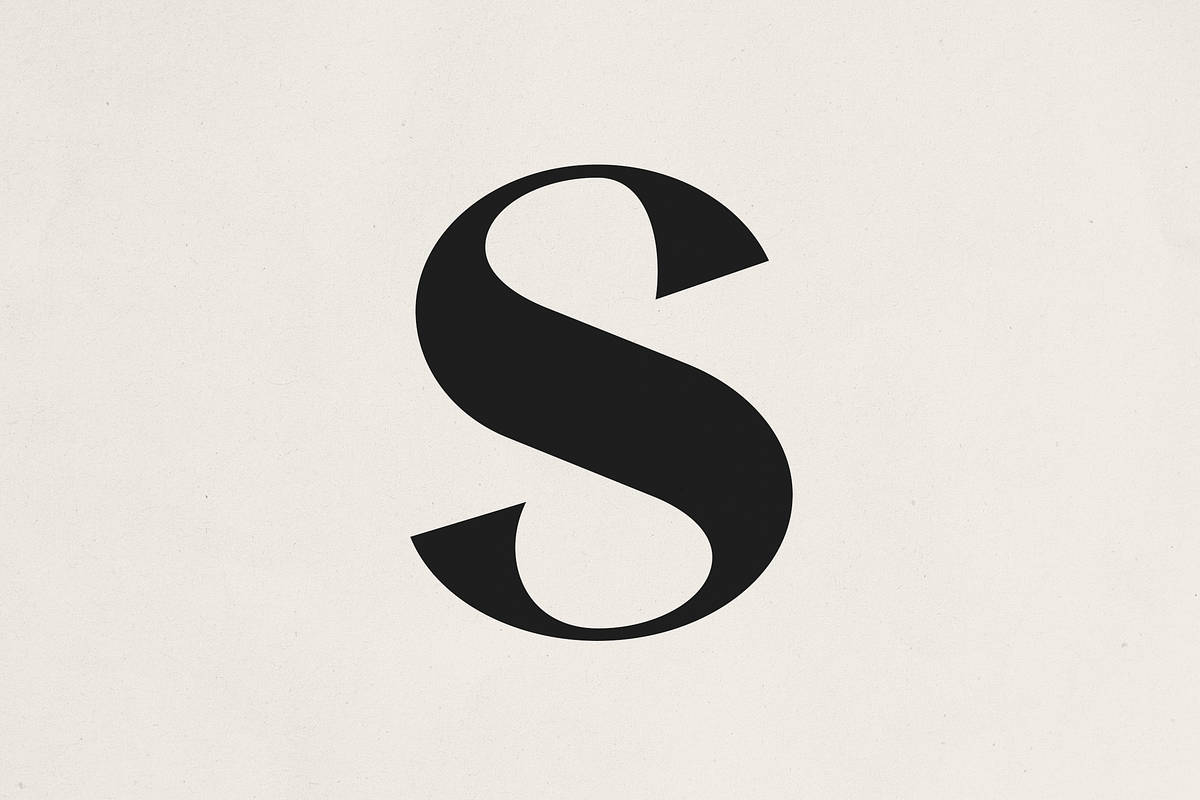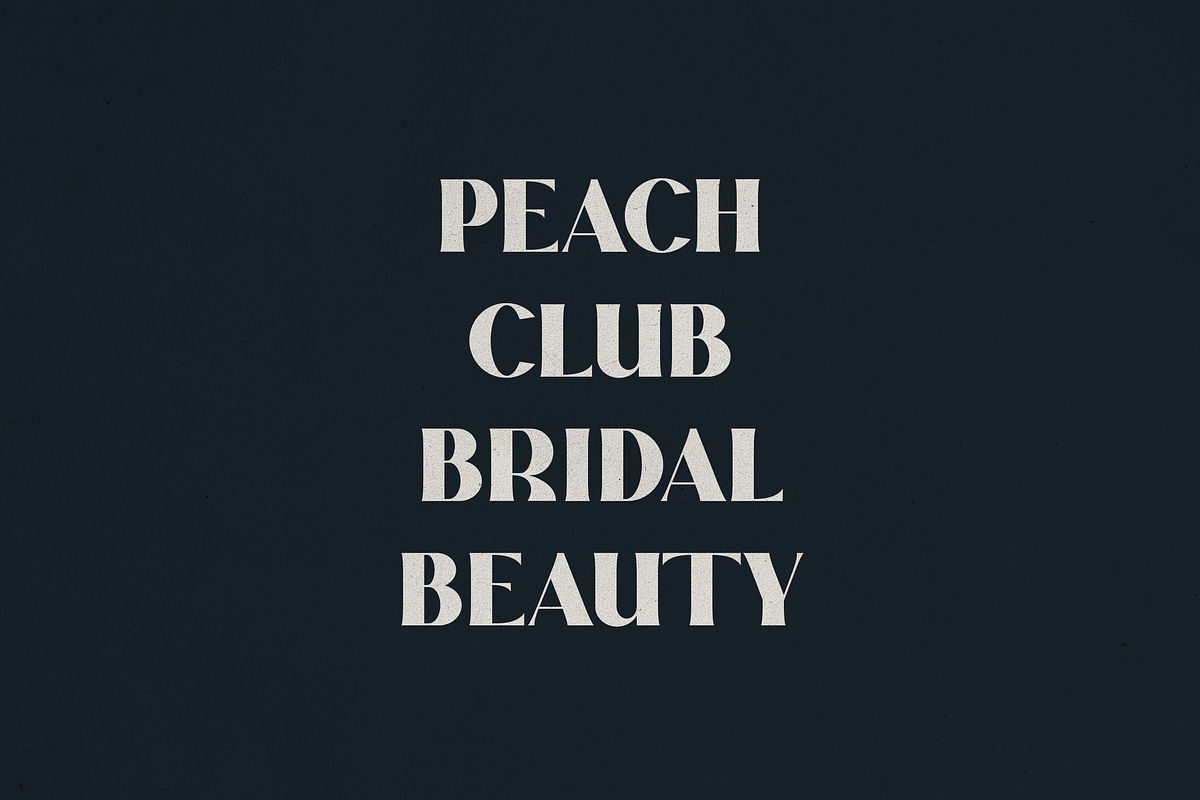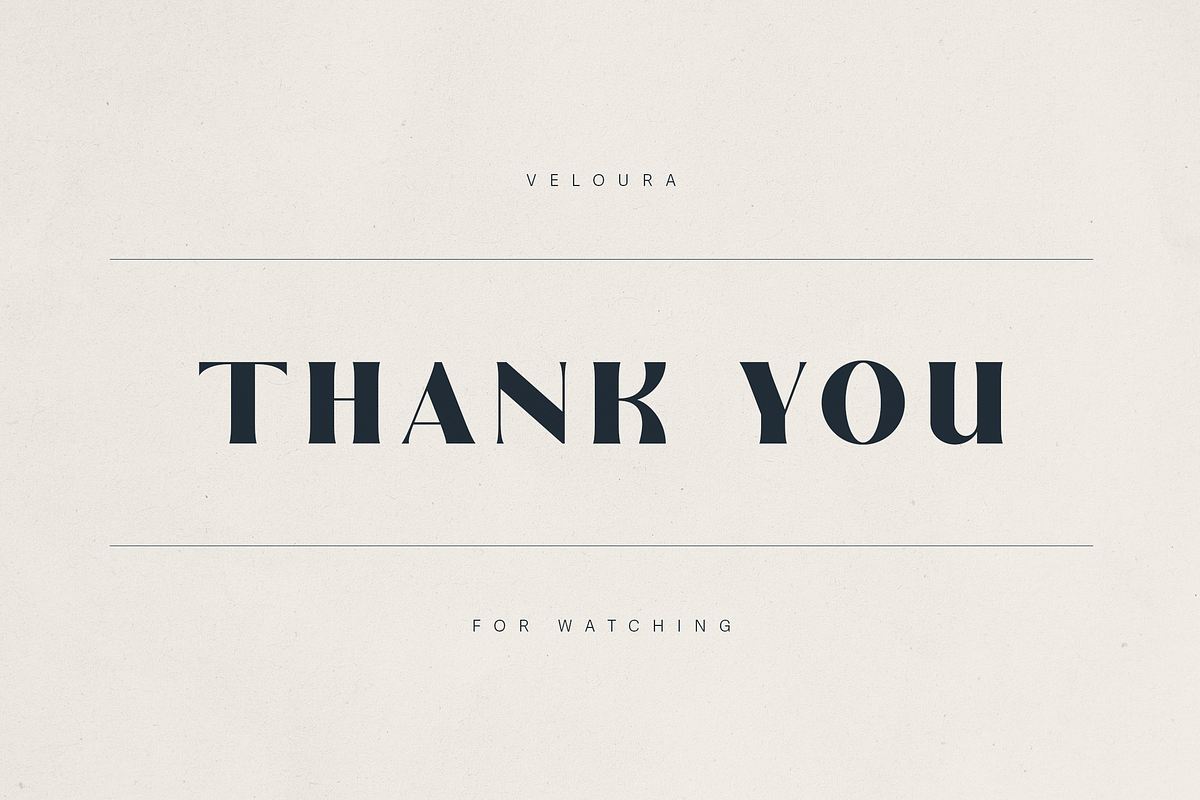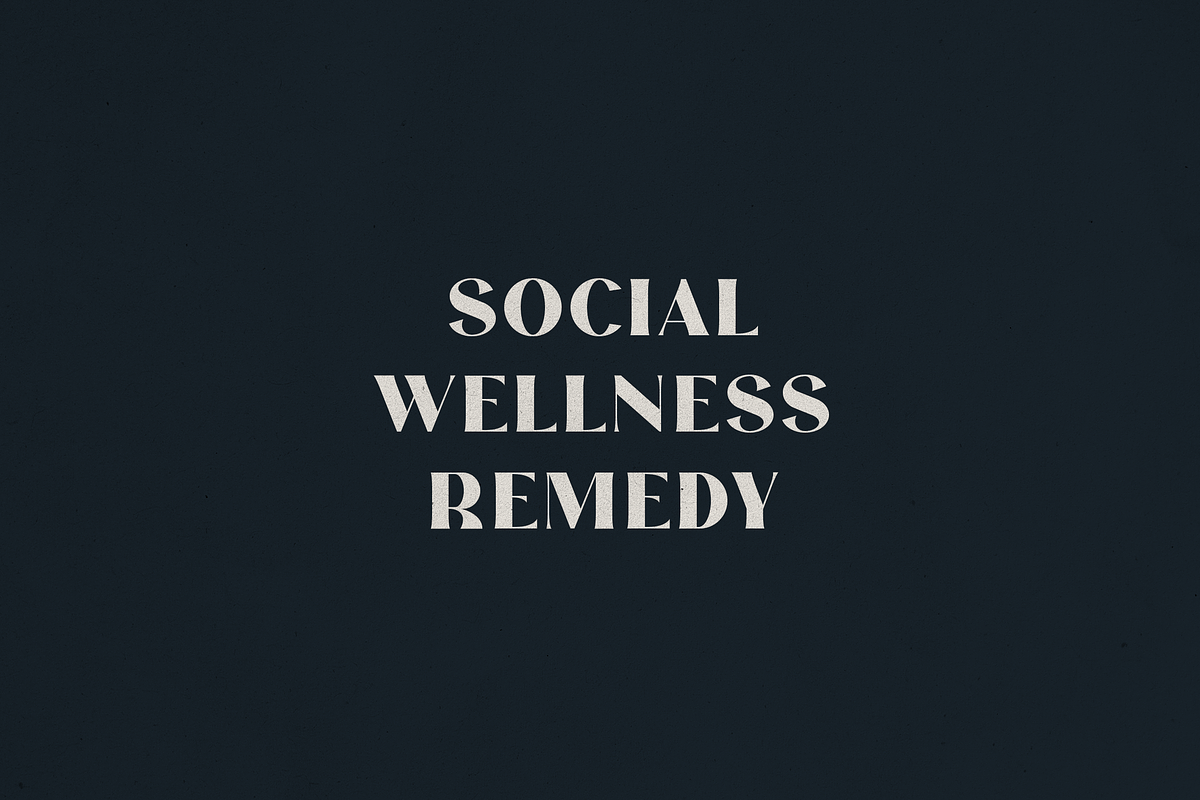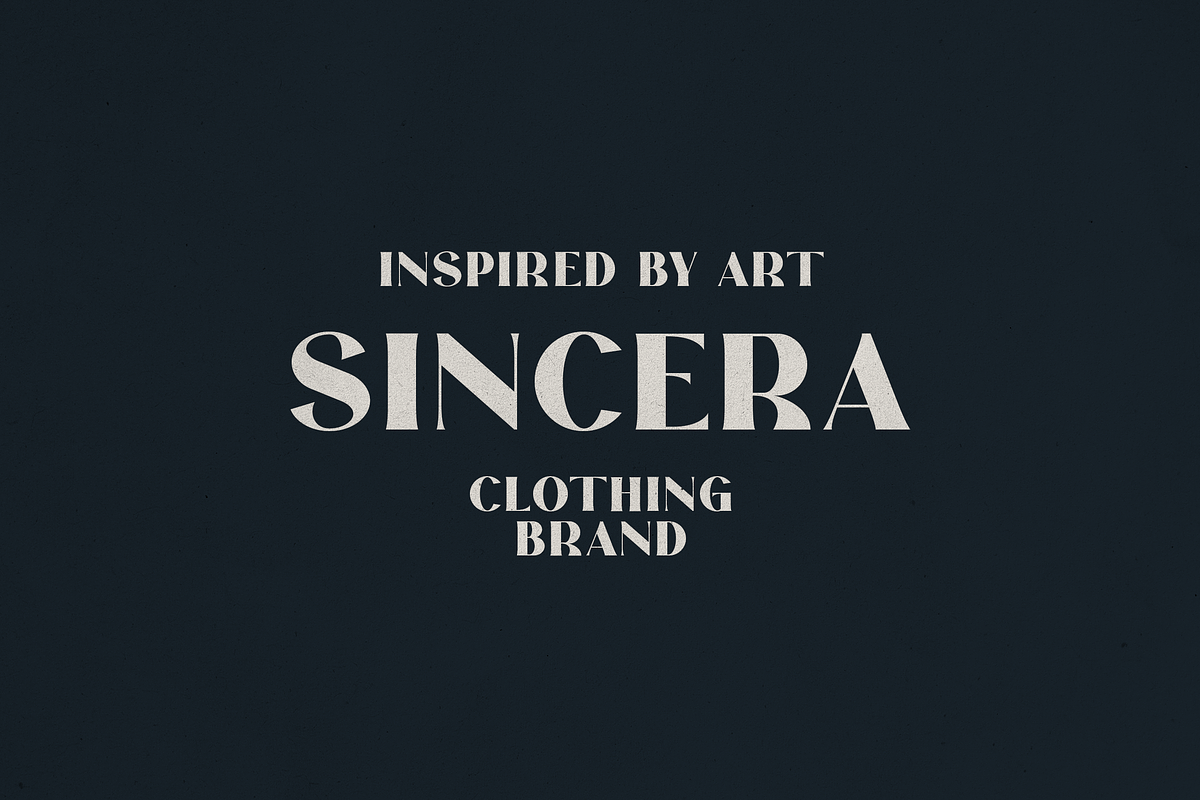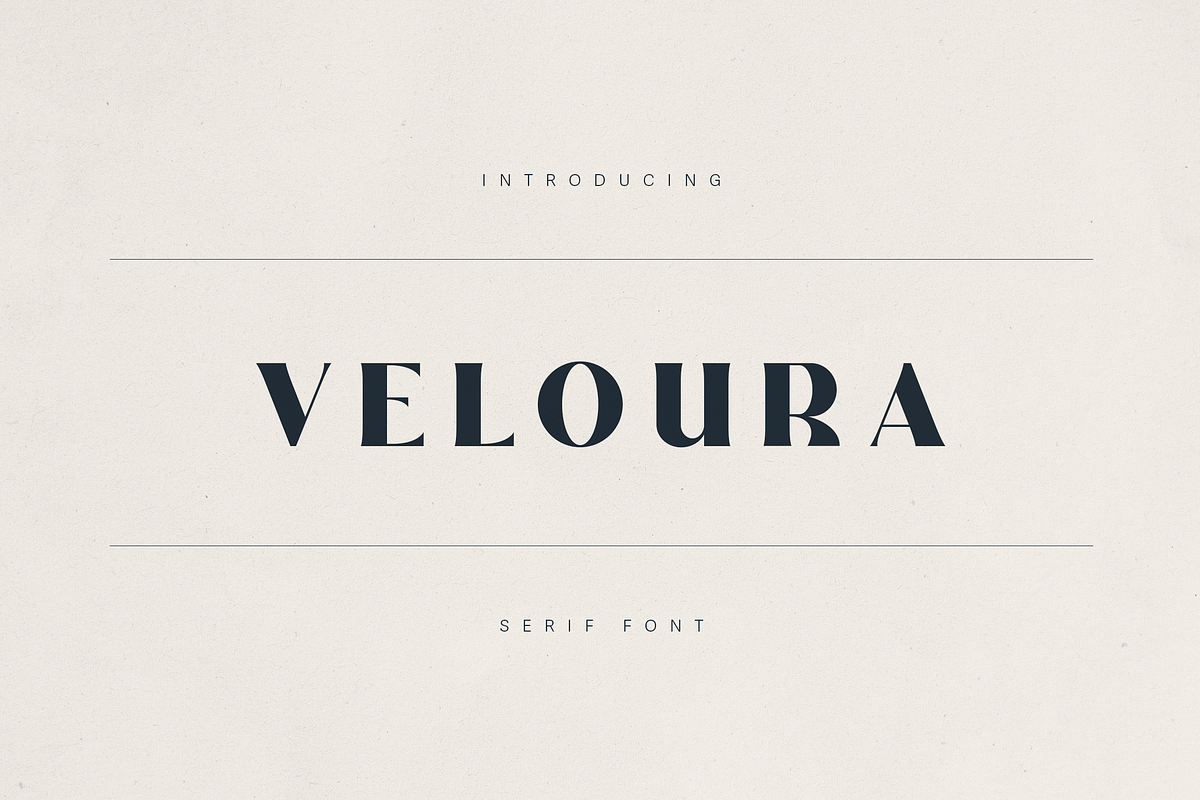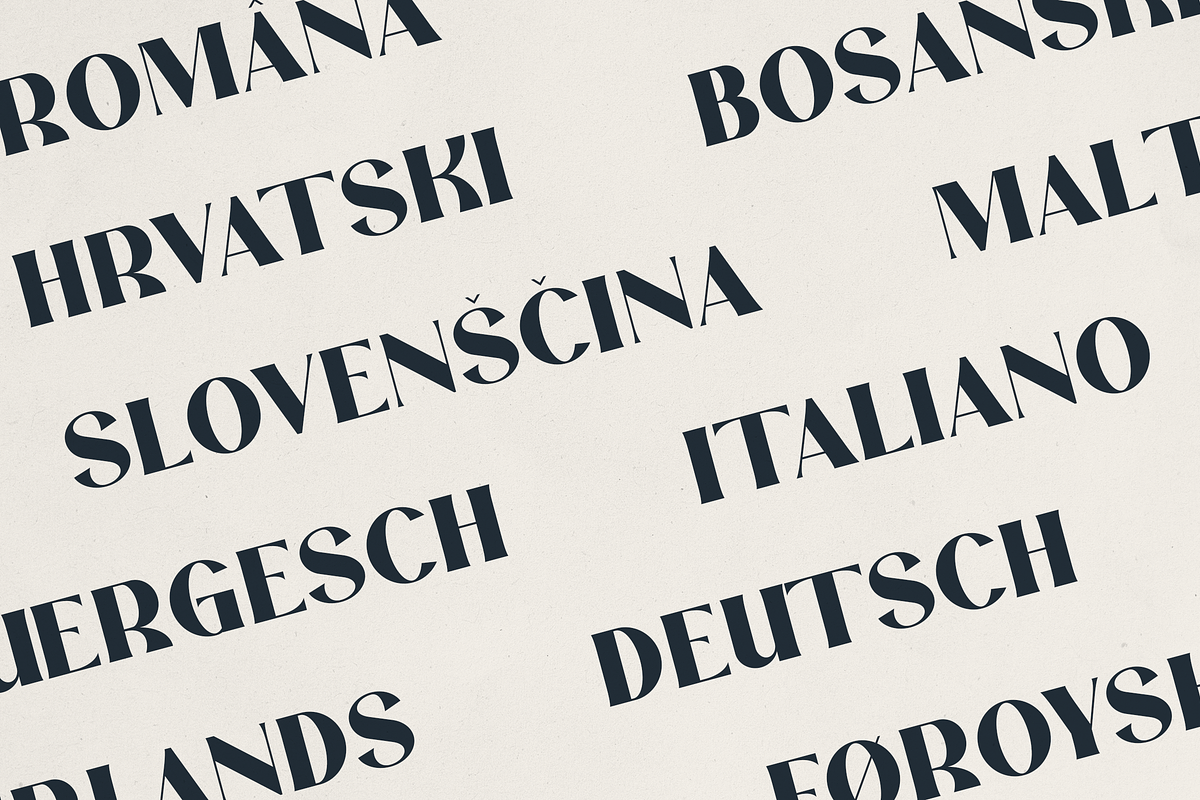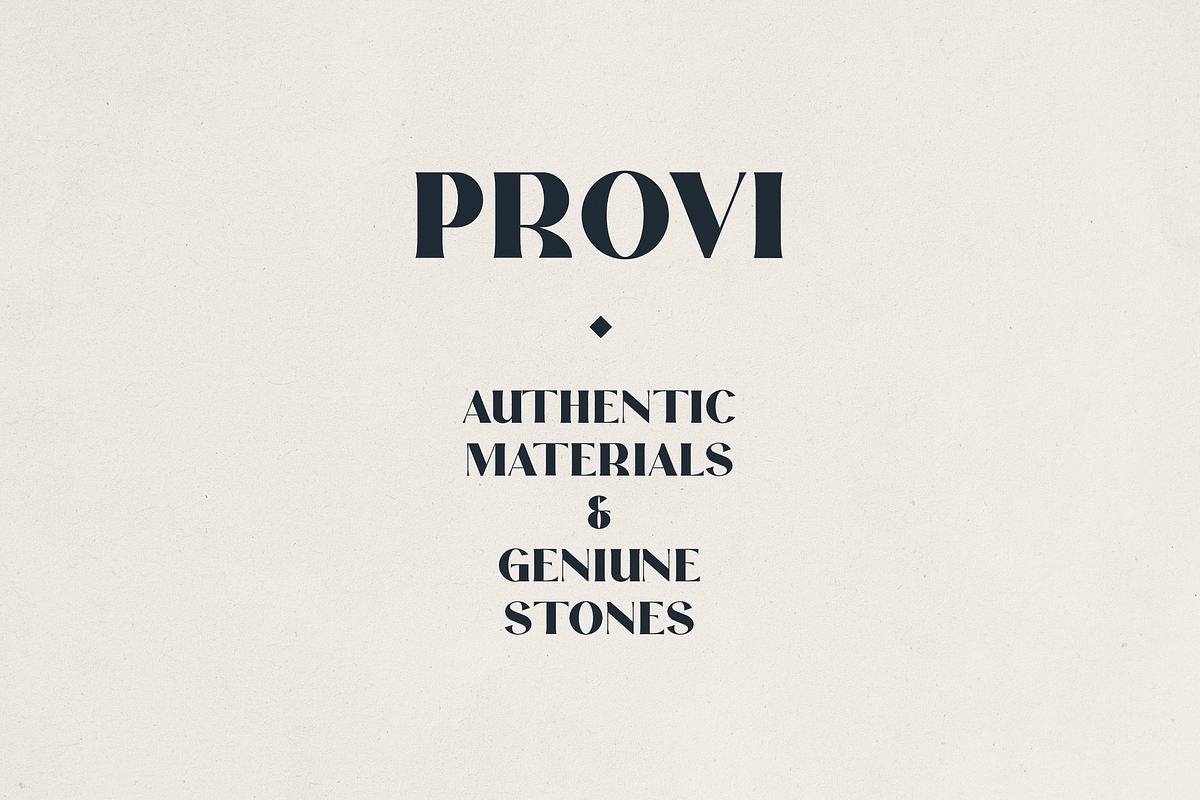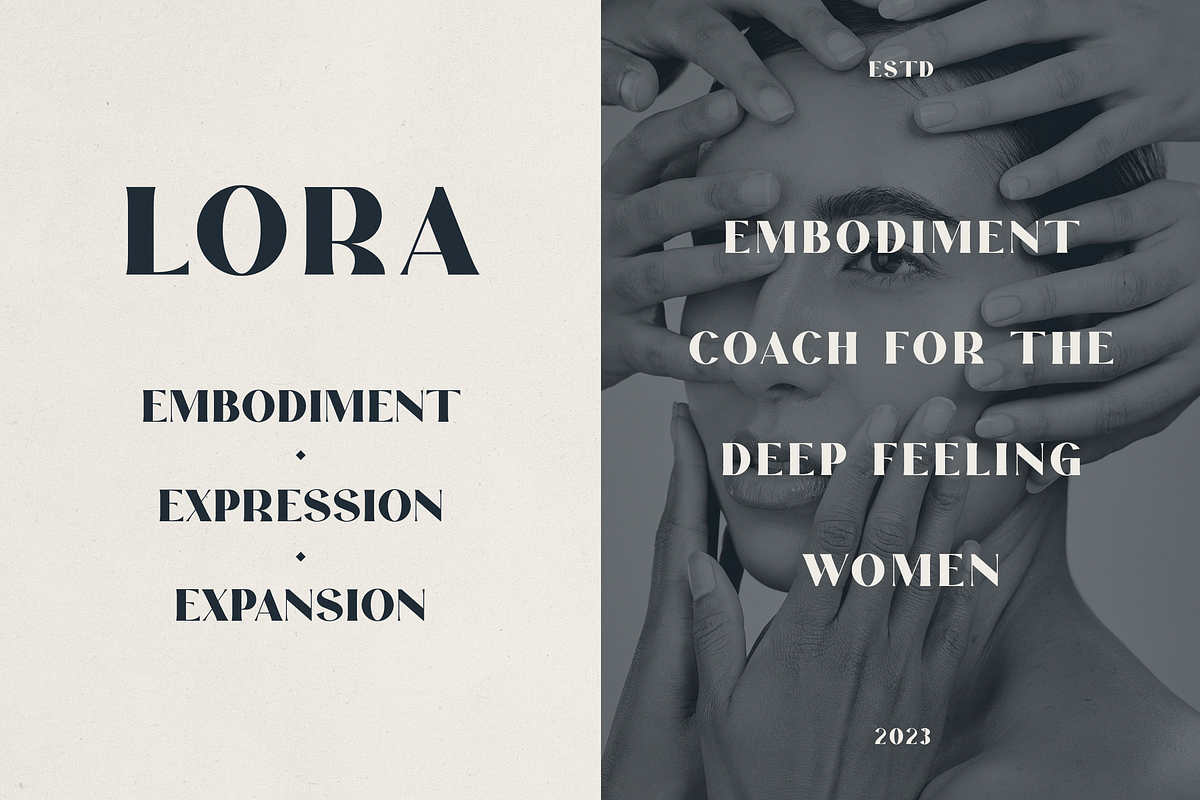
Veloura Serif Font – Elegant Type
Veloura Serif Font – Elegant Type for Timeless Branding
Introducing Veloura, a luxurious serif typeface crafted for brands that value sophistication, expression, and creative clarity. With high contrast strokes and distinctive cuts, Veloura blends modern editorial elegance with vintage flair—making it ideal for beauty brands, fashion labels, wellness studios, and art-inspired projects.
Designed for impact, Veloura features:
- Sharp, sculpted serifs with artistic flair
- Strong vertical rhythm perfect for headlines and display use
- All caps with multilingual support (including accented Latin characters)
Whether you're designing for a coaching brand, boutique skincare label, or contemporary clothing collection, Veloura adds emotional depth and bold character to every word.
Use Cases: Logo design, packaging, magazine titles, posters, social media, wedding branding, and more.